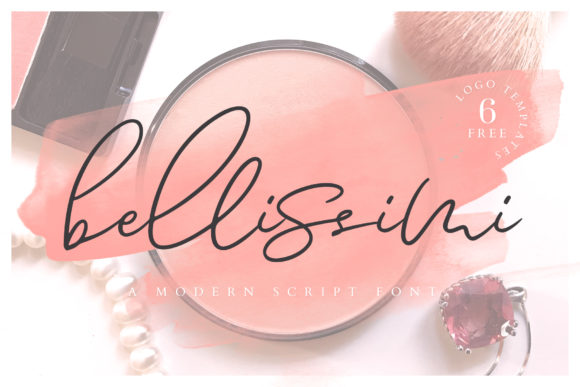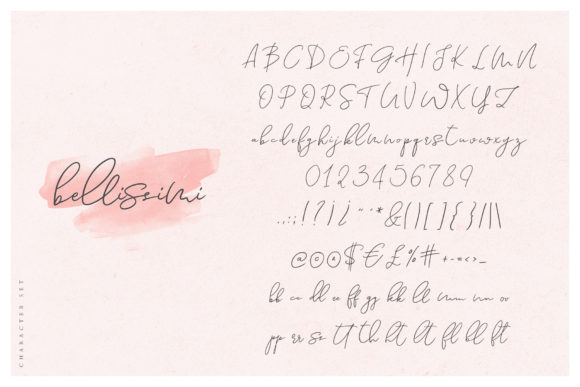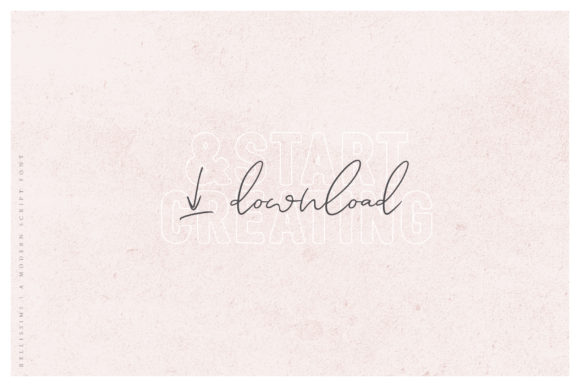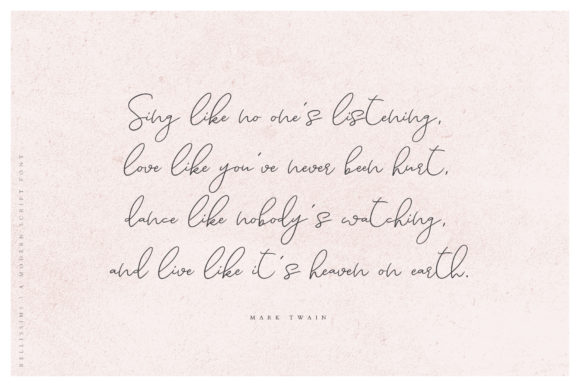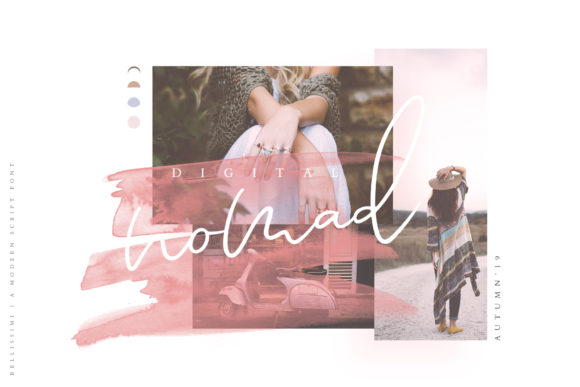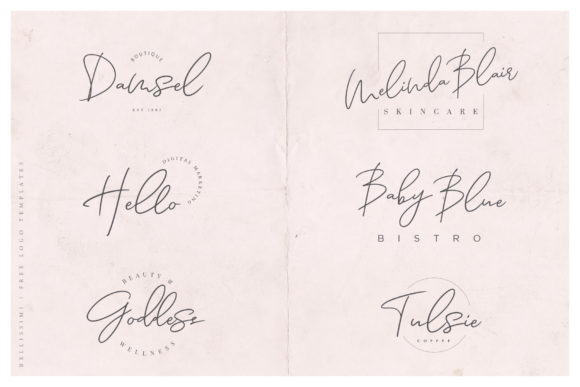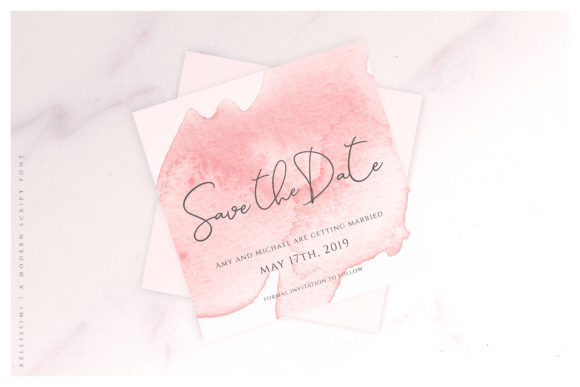
Bellissimi Font
About Bellissimi Font
The Bellissimi is a handwritten script font with a bouncy baseline. Unapologetically feminine, Bellissimi conveys a confident and romantic personality.
It’s equipped with a set of stylish ligatures and easily recaptures the look cursive handwriting.